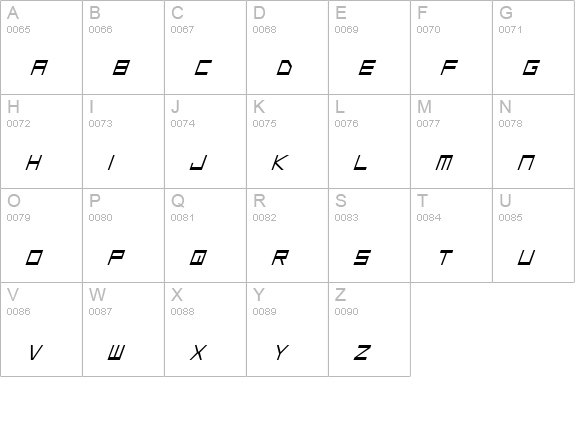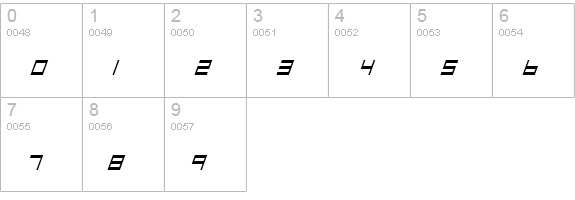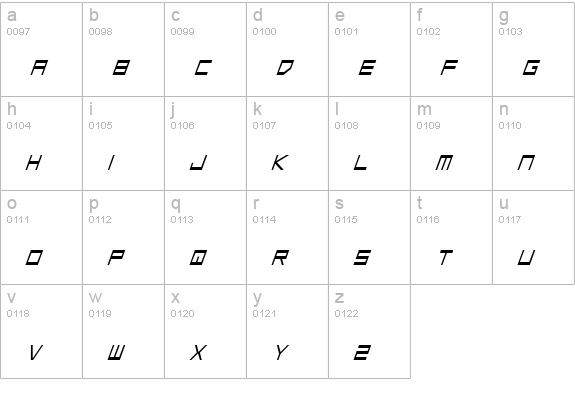
Low Gun Screen Condensed Italic is a distinctive, condensed-width, italic variant in the Low typeface family \xE2\x80\x94 well suited to design and typography projects.
The Low Gun Screen Condensed Italic font is a modern and stylish typeface that exudes sophistication and elegance. Its sleek and condensed design adds a touch of sophistication to any project, making it perfect for branding, advertising, and editorial design. The italic style gives the font a dynamic and contemporary look, making it stand out from the crowd. One of the best features of the Low Gun Screen Condensed Italic font is that it is completely free to download at FontsMarket.com. This means that you can access this high-quality font without having to spend a dime, making it a valuable resource for designers and creatives looking to elevate their work without breaking the bank. Don't miss out on the opportunity to enhance your projects with this beautiful and versatile font that is just a click away!